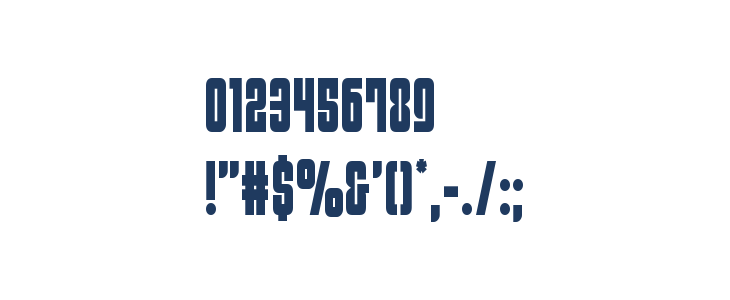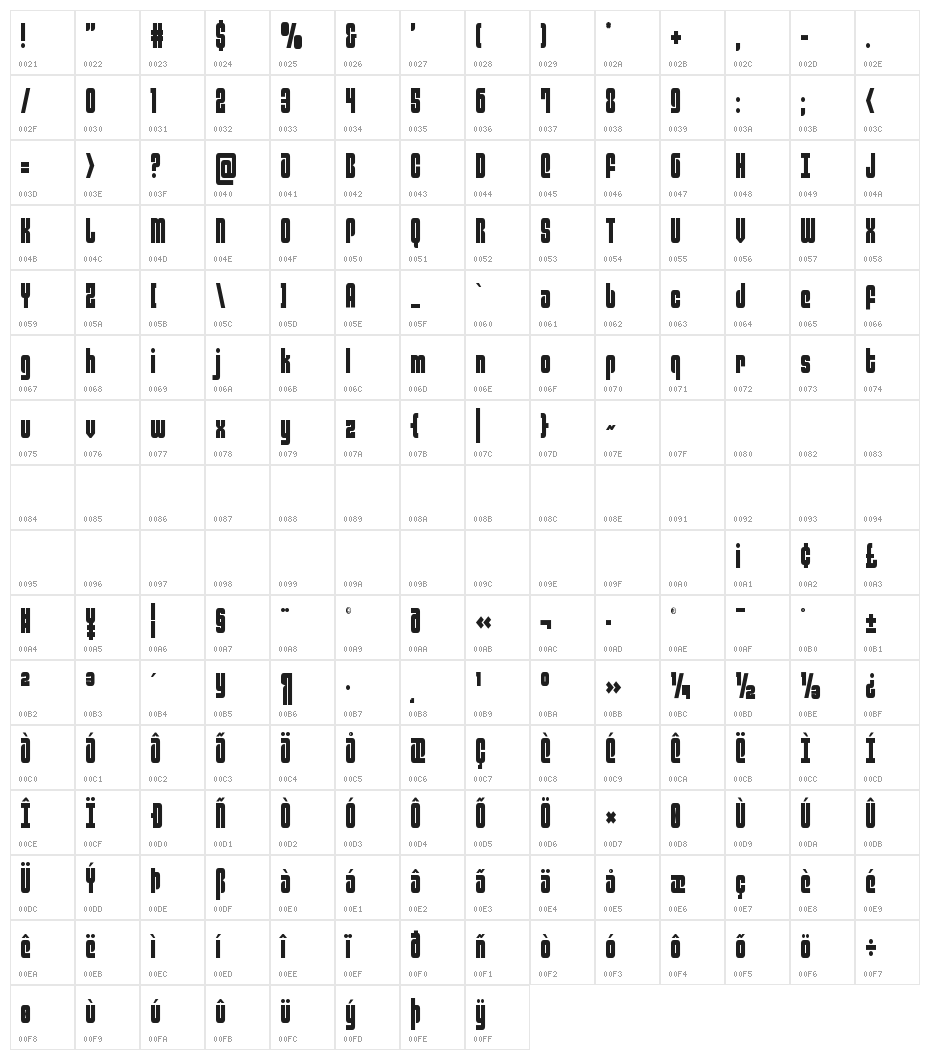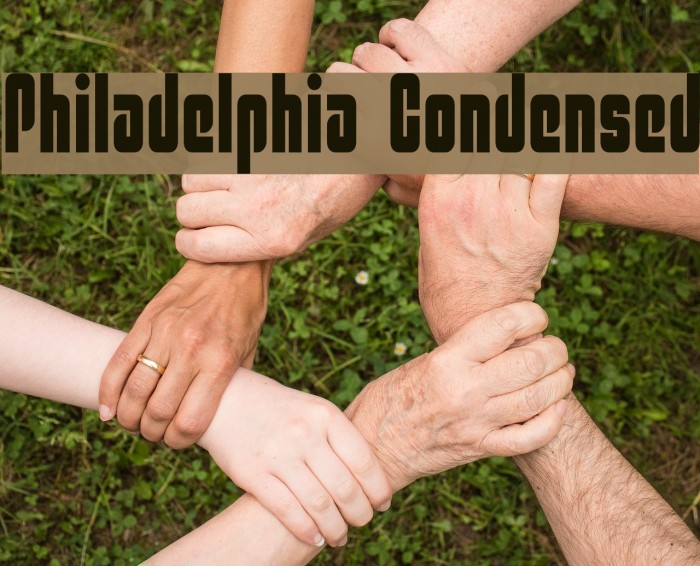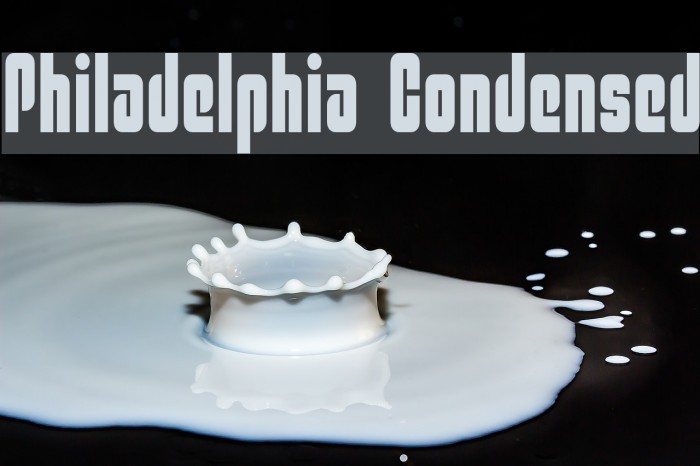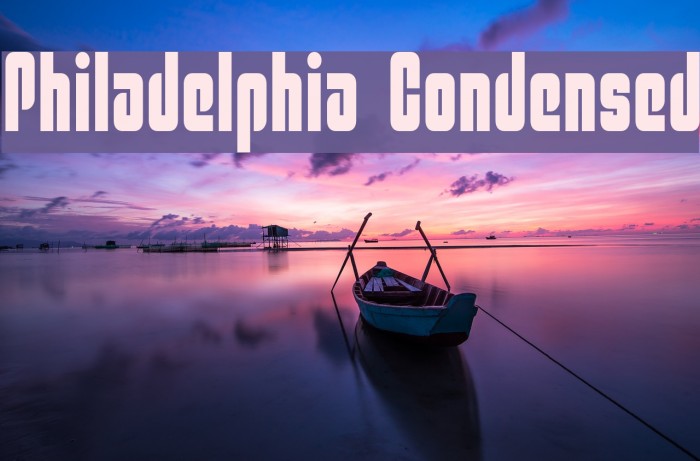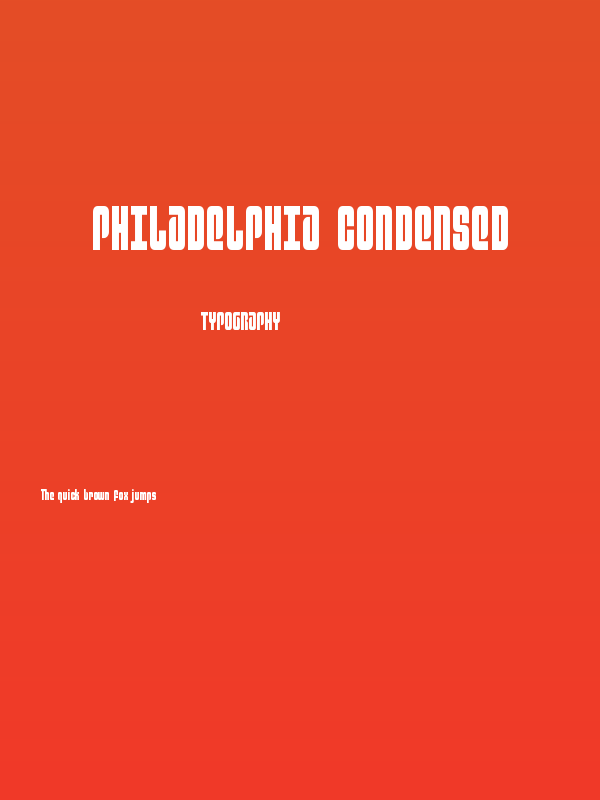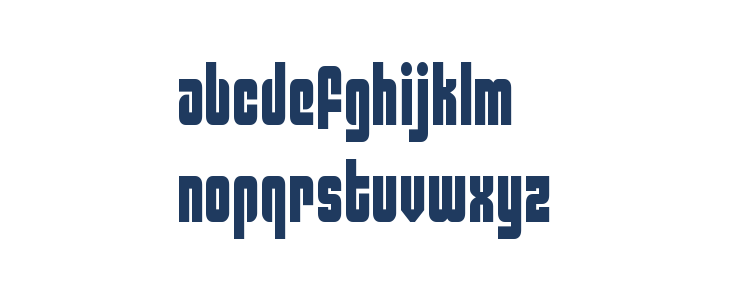
Philadelphia Condensed Font
Philadelphia Condensed Description
This font features a bold and condensed style, characterized by its thick, block-like letters that create a strong visual impact. The uppercase and lowercase letters maintain a uniform width, contributing to its compact appearance. The numbers and special characters are designed to match the boldness of the alphabet, ensuring consistency across all glyphs. The font's geometric shapes and clean lines give it a modern and industrial feel, making it suitable for projects that require a strong and assertive typeface.
| Proposed Projects | Ideal for posters, headlines, logos, and branding materials that require a strong visual presence. |